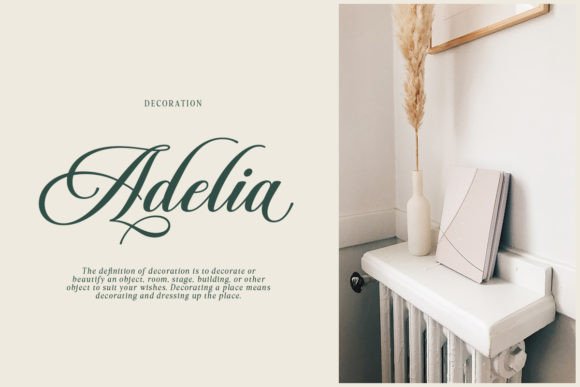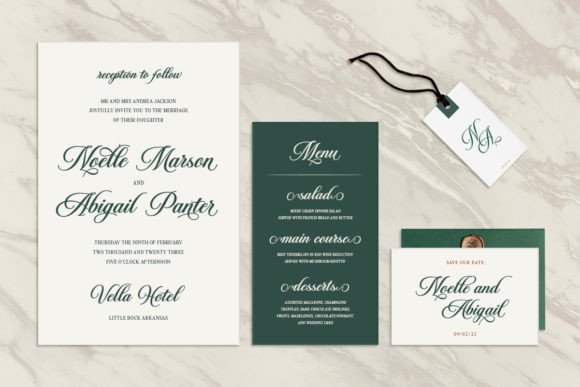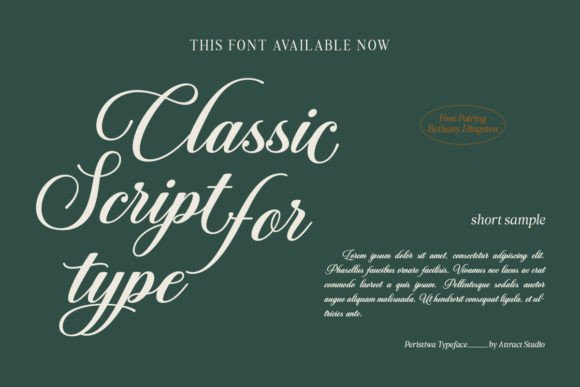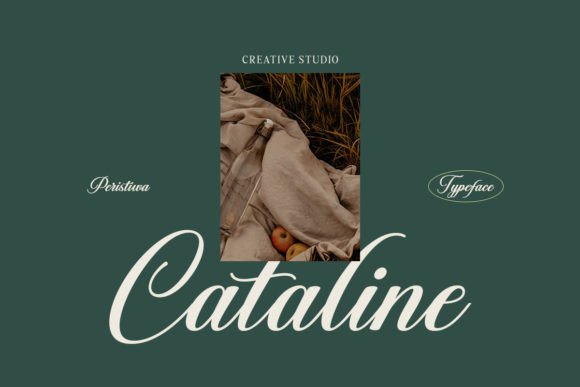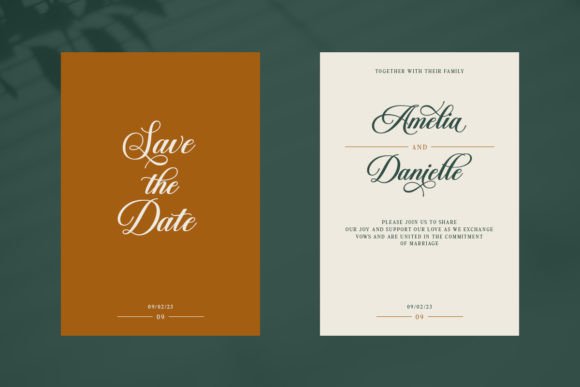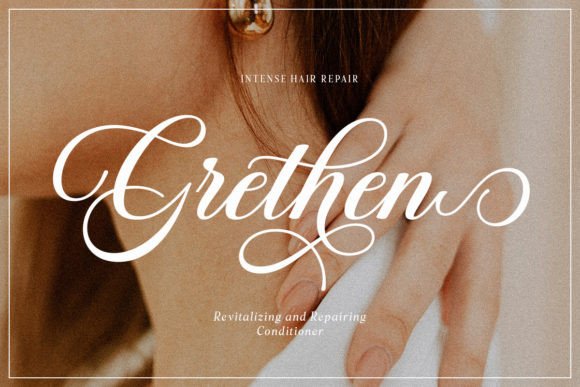
Introduction to Peristiwa Font
Do you remember that moment when you’re working on a creative project and you just can’t seem to find the right font to match your vision? You scroll through your font library, searching for something that will elevate your design and make it truly stand out. For designers like you, having a reliable and versatile font can be a game-changer.
Enter the Peristiwa Font, a stunning, full-featured vintage-inspired calligraphic script font that’s about to become your new go-to design resource. With its elegant and high-quality design, this font has the potential to enhance any creation, whether it’s a branding project, a wedding invitation, or a blog post.
Key Features of Peristiwa Font
- Features a unique, modern design with a transparent background, ideal for overlaying on images or videos.
- Includes multiple font weights and styles, allowing for versatility in design applications.
- Perfect for graphic designers, digital artists, and anyone looking for a high-quality, free design resource.
Honest Review: Peristiwa Font
I recently had the chance to work with the Peristiwa Font, and I must say it’s been a game-changer for my design projects. The font’s unique design and high quality make it perfect for any creative project that requires a bit of flair.
What works well: ✨ The font’s transparent background allows for seamless integration with any design element, making it easy to customize and style. The free download option is also a huge plus, as it saves me time and money in the long run. The font’s high quality ensures that my designs look professional and polished.
Some limitations: ⚠️ While the font is versatile, it may not be the best choice for projects that require a more traditional or formal look. Additionally, the font’s unique design may not be suitable for all audiences, so it’s essential to consider your target demographic before using it.
Overall, I’m impressed with the Peristiwa Font and would definitely recommend it as a valuable design resource. Its unique design and high quality make it perfect for creative projects that require a bit of personality.
- Perfect for creative projects that require a bit of flair
- High-quality design that looks professional and polished
Peristiwa Font
Peristiwa Font is a high-quality design resource that can elevate your creative project. It’s available for free download and features a transparent background, making it perfect for use in various design applications.
Using Peristiwa Font in Design Applications
You can use Peristiwa Font in a variety of design applications, including:
Tips for Getting the Most Out of Peristiwa Font
To get the most out of Peristiwa Font, try the following:
- Combine Peristiwa Font with other design elements, such as images and shapes, to create a visually appealing design.
- Use the transparent background feature to create a seamless design that blends with your background.
Peristiwa Font is perfect for use in a variety of creative projects, including:
- Graphic design projects, such as logos, business cards, and brochures.
- Presentations, such as slideshows and reports.
- Web design projects, such as websites and landing pages.